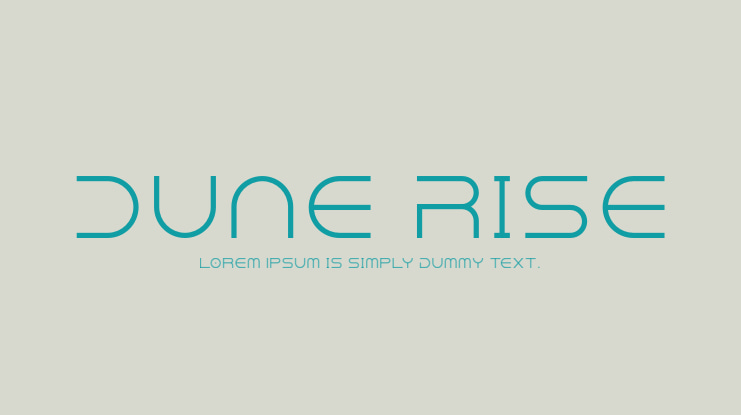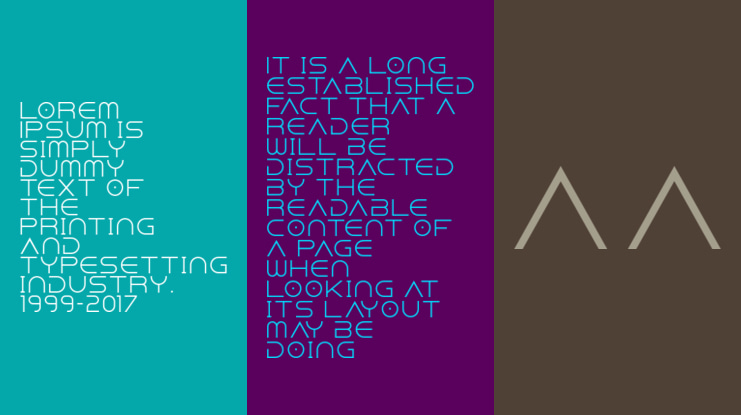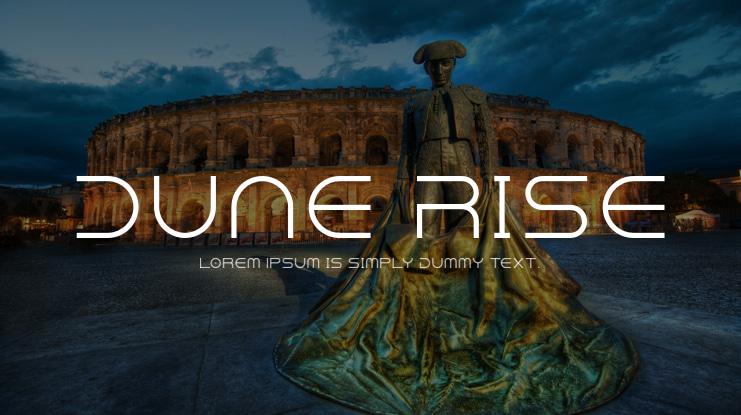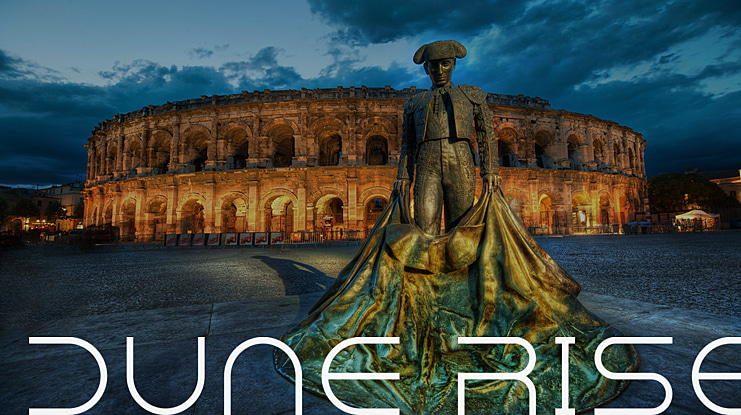
This is a bold and authentic display font that features a futuristic appearance, it was designed by Jesta Designs and inspired by the movie title of “Dune 2021”. The font is suitable for any branding project like logo, t-shirt printing, esport, and many more. outstanding in a wide range of contexts.